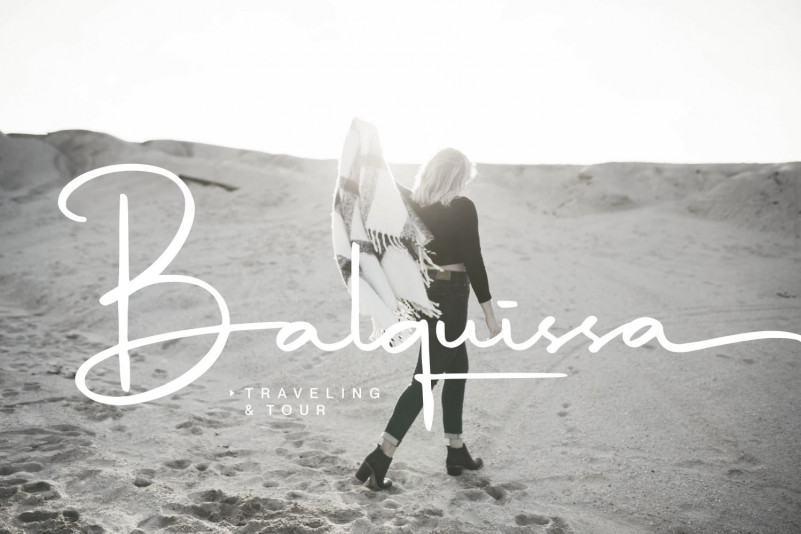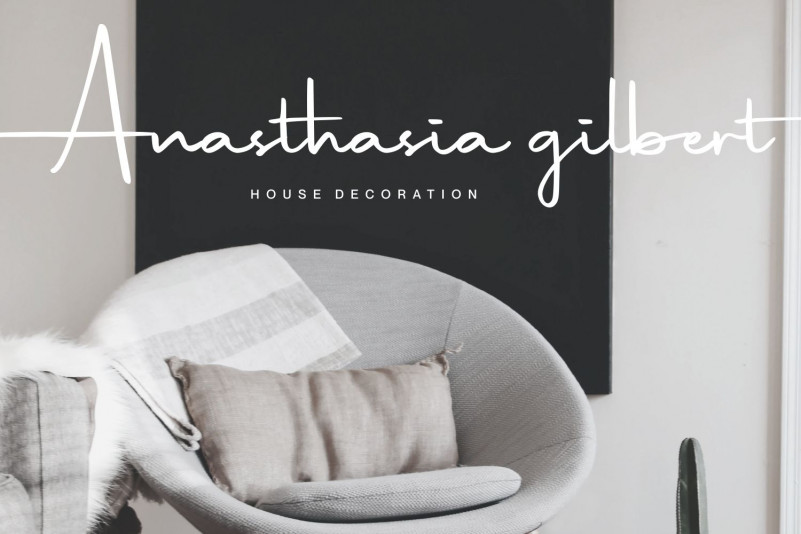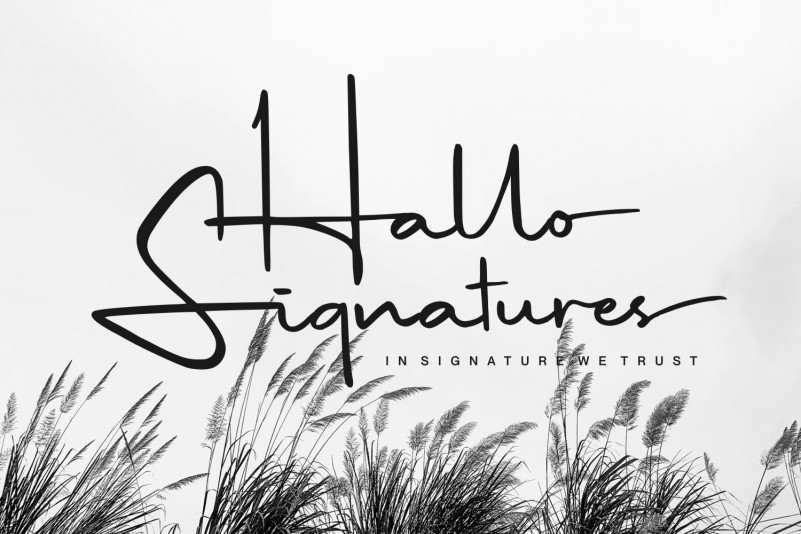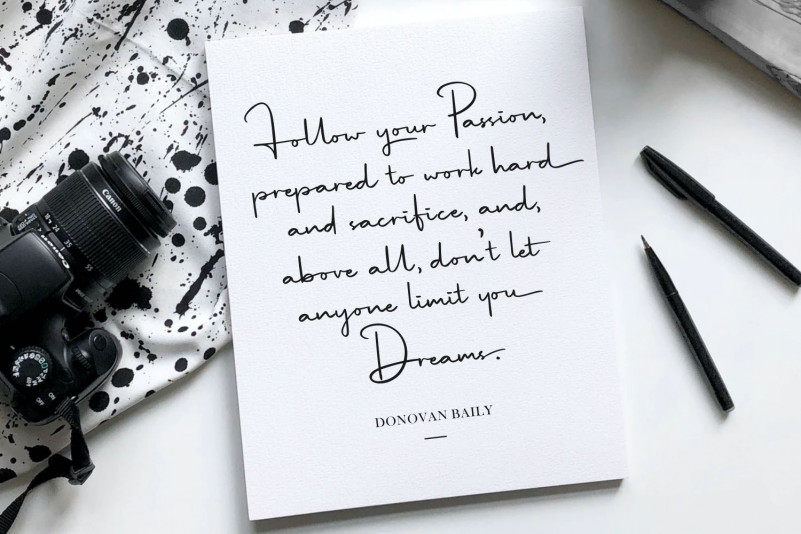
Hildaquin Handwritten Font
This is a flowing handwritten font, described by an elegant touch, perfect for your favorite projects. Fall in love with its incredibly distinct and timeless style and use it to create spectacular designs!